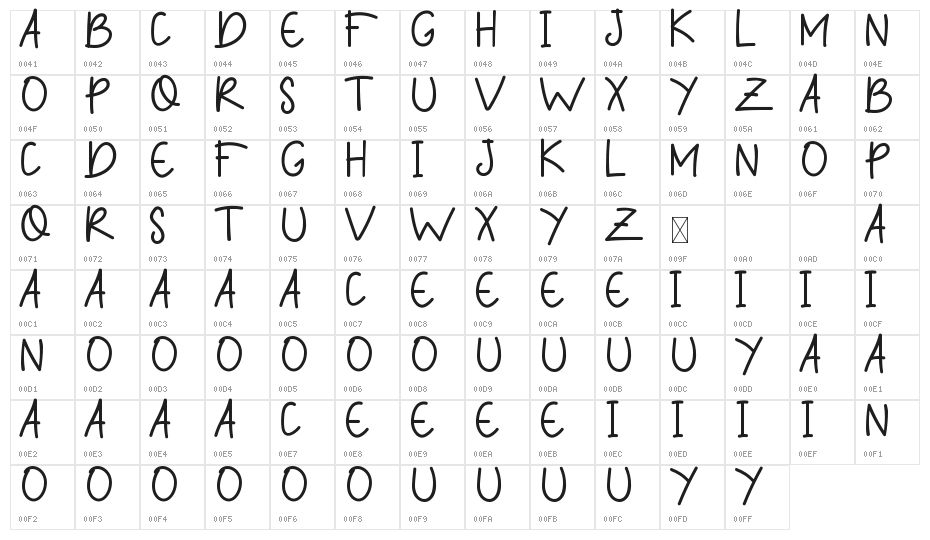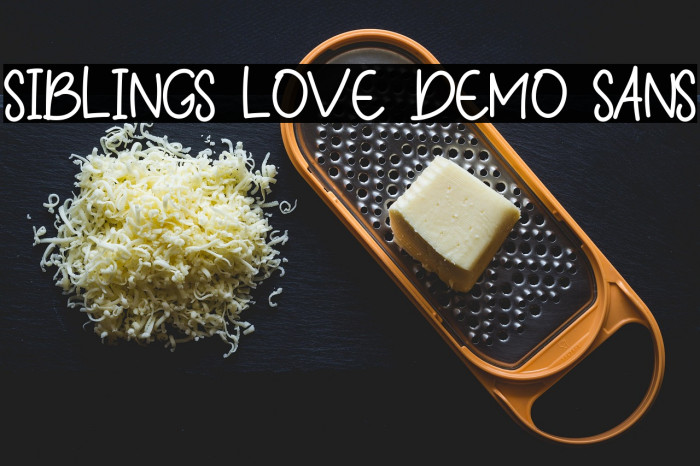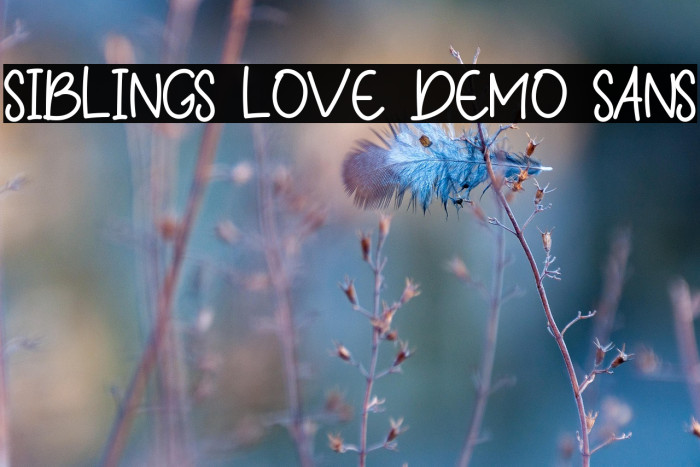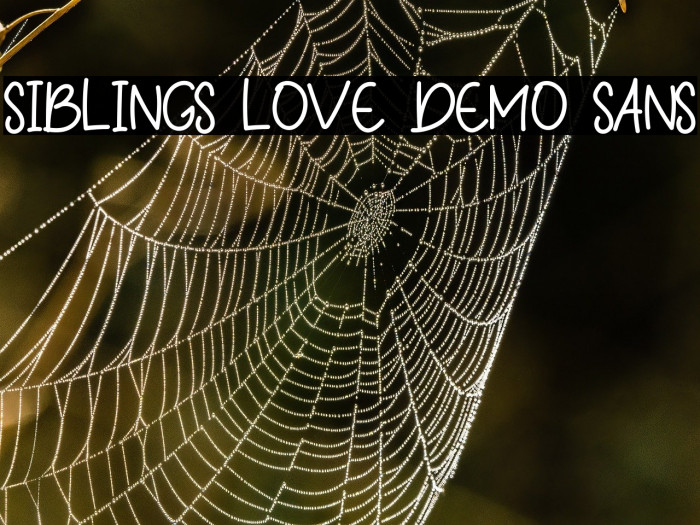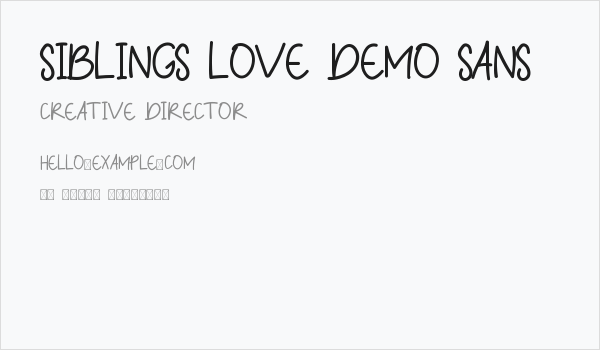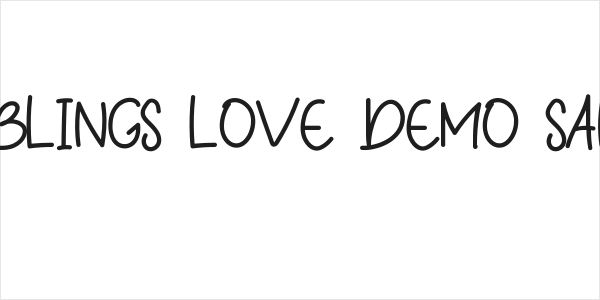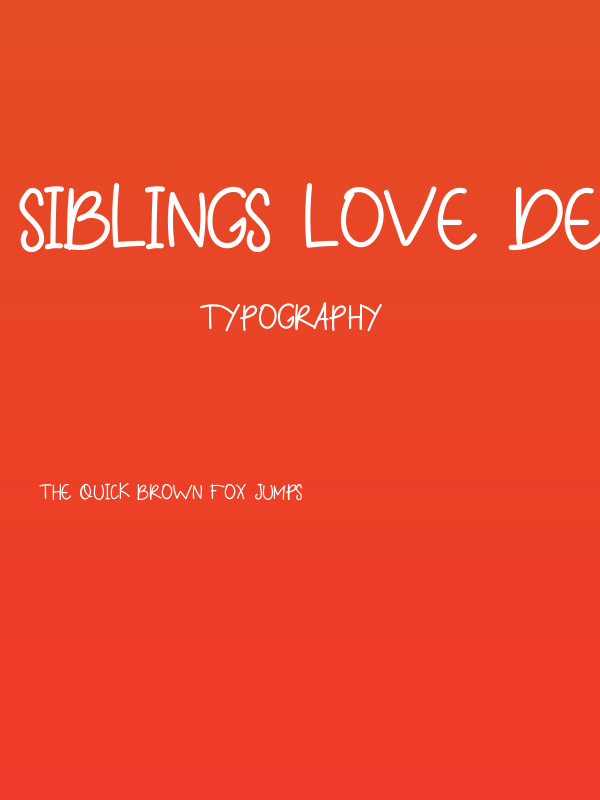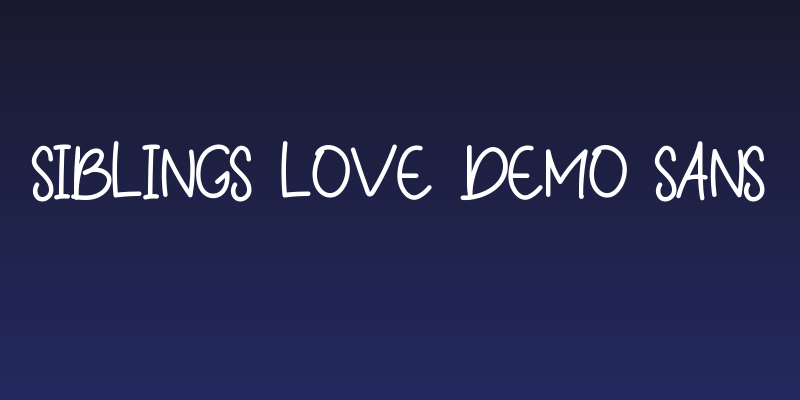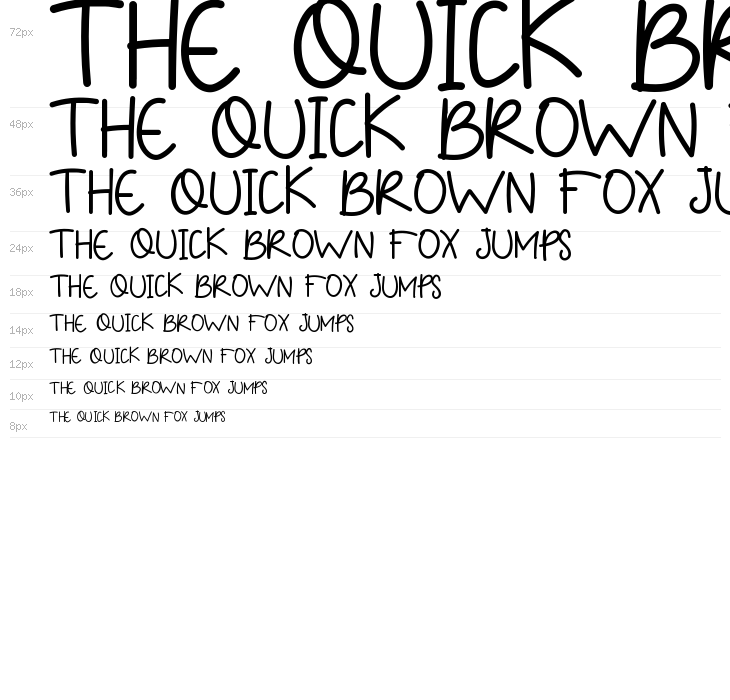
Siblings Love Demo Sans Font
Siblings Love Demo Sans Description
This font features a playful and casual handwritten style, characterized by its smooth, rounded edges and slightly irregular letterforms. The uppercase letters are bold and dynamic, with a consistent stroke width that gives a uniform appearance. The lowercase letters maintain the same playful nature, with some letters like 'e' and 'o' having a distinct loop that adds to the font's charm. The overall design is friendly and approachable, making it suitable for informal and creative projects. The spacing between characters is balanced, providing good readability while maintaining the font's whimsical aesthetic.
| Proposed Projects | Ideal for greeting cards, children's books, playful branding, and social media graphics. |